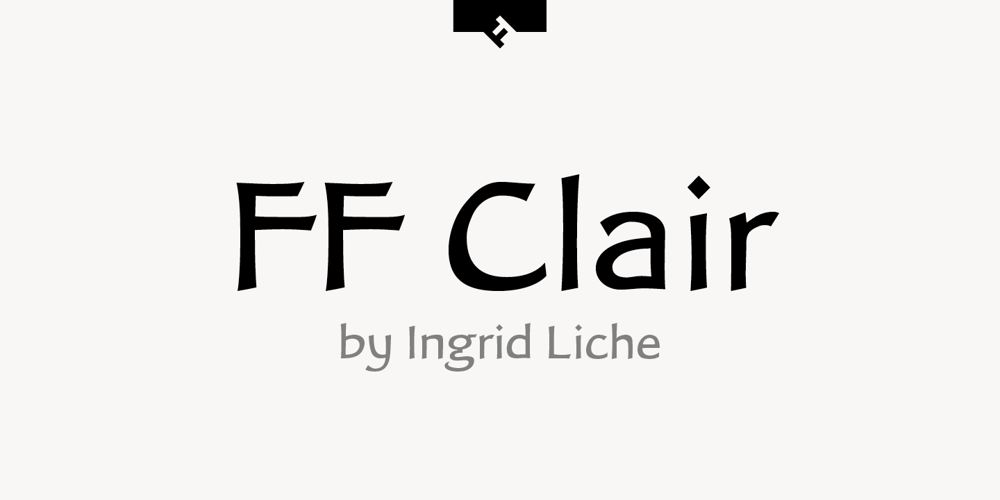
FF Clair Font Family was designed by Ingrid Liche and published by FontFont. FF Clair contains 5 styles and family package options. German type designer Ingrid Liche created this script FontFont in 1995. The family has 5 weights, ranging from Light to Black and is ideally suited for advertising and packaging, editorial and publishing as well as logo, branding and creative industries. FF Clair provides advanced typographical support with features such as ligatures, alternate characters, and case-sensitive forms. It comes with proportional oldstyle and proportional lining figures.